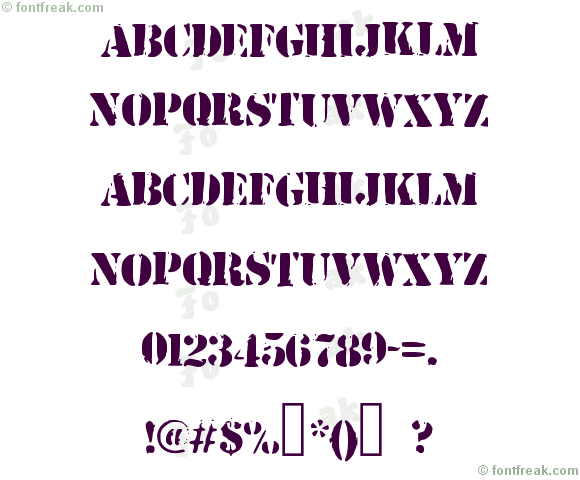
ArmyStamp
About ArmyStamp
The ArmyStamp font, created by Leonard Posavec and available for free download, is a unique display typeface that embodies a rugged, military-inspired aesthetic. This font falls into the decorative category, characterized by its bold, stencil-like appearance that evokes a sense of strength and resilience. The stroke weight is consistent throughout, giving it a sturdy look, while the spacing between characters is tight, enhancing its impactful presence.
Visually, ArmyStamp features sharp edges and a slightly distressed texture, reminiscent of traditional army stamps, which adds an authentic feel to any design. The absence of embellishments allows it to stand out while maintaining a straightforward, utilitarian charm. Its visual characteristics make it suitable for a variety of applications, including military-themed projects, promotional materials for outdoor events, and even urban-style branding. It also works remarkably well for creating striking posters, especially for action-packed movies or music festivals, where a bold statement is essential. Additionally, ArmyStamp can be effectively used in restaurant menus that aim to convey a rustic or adventurous theme, appealing to diners looking for a unique dining experience.
The target audience for this font includes graphic designers, small business owners, and content creators who are looking for a strong visual identity. Its versatility makes it an excellent choice for anyone needing a font that commands attention while remaining approachable.
What sets ArmyStamp apart is its ability to convey a sense of authority and creativity simultaneously. This font is perfect for projects that require a distinctive touch, making it an essential addition to any designer's toolkit. With the ArmyStamp font free download, you can easily incorporate this striking typeface into your work and elevate your design projects to new heights.